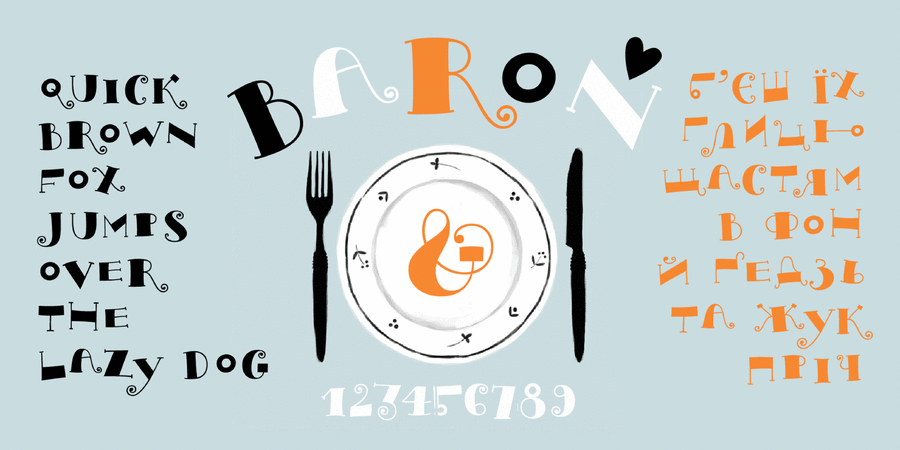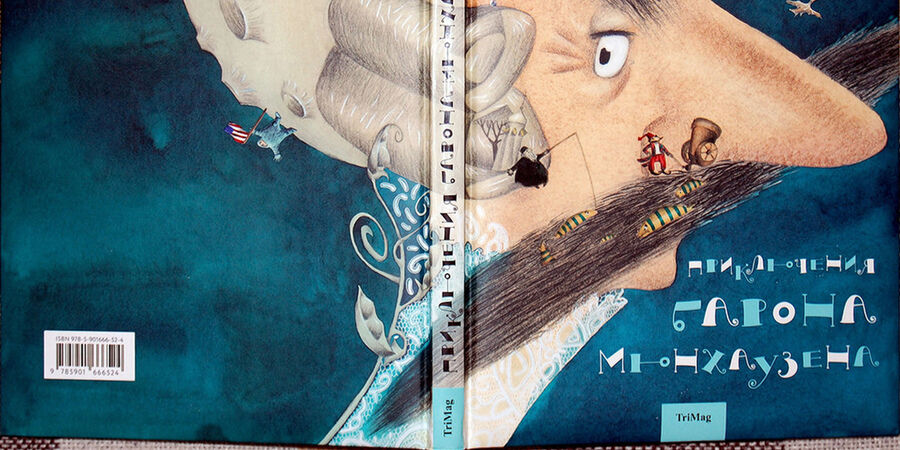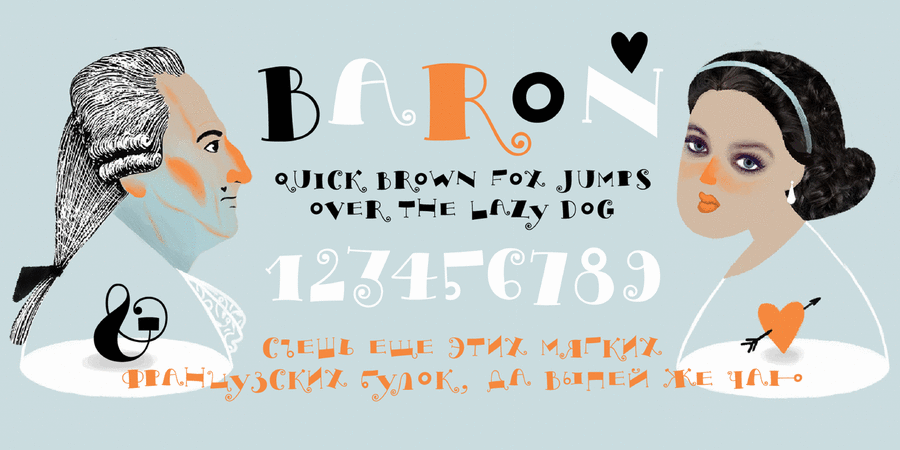
Contrast font pair with Proba Pro Light (1 of 1)About Baron Type is an improved version of the Ackatic font created for headings in a book about Baron Munchausen for the publishing house TriMag. The typeface has an award “for perfection in type and graphic design” at the student typography competition organized by ParaType. In addition to current Cyrillic the updated version has a basic Latin characters, and significantly improved digits. The font was developed by Svetlana Akatieva with the participation of Alexandra Korolkova, the Latin alphabet and numbers for the new version were developed by Marchela Mozhyna in 2019-2020.